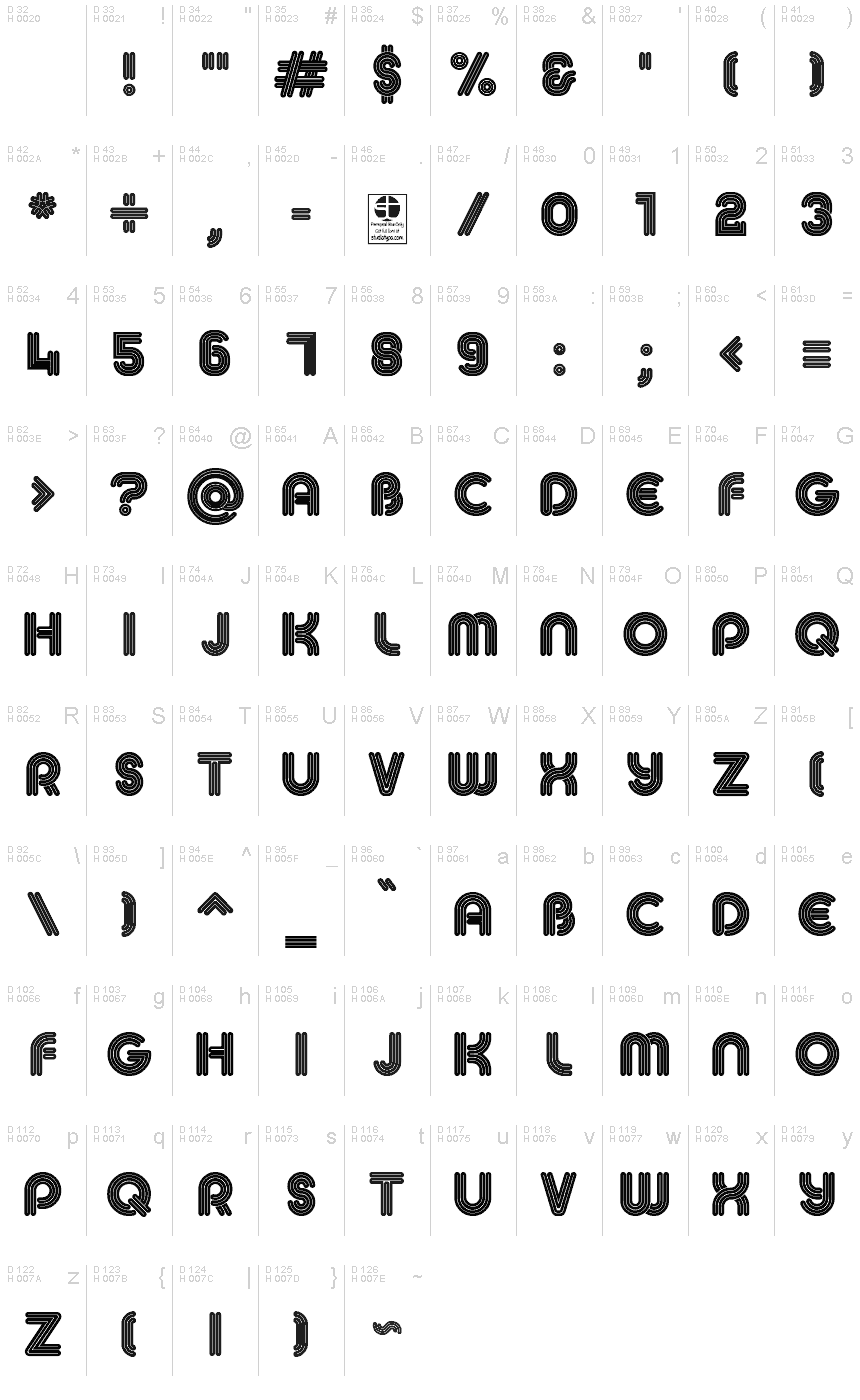
MACCOS Bold is a captivating display font that exudes a groovy, retro-inspired aesthetic. Designed by Mehmet Abaci, this bold typeface boasts striking curves and a distinctive flair, making it a standout choice for a variety of design applications. From eye-catching logos and headers to impactful text overlays, MACCOS Bold's dynamic personality lends itself seamlessly to both modern and nostalgic design sensibilities.
Its versatility and visual impact make it a compelling option for designers seeking to elevate their projects with a touch of retro-chic charm.